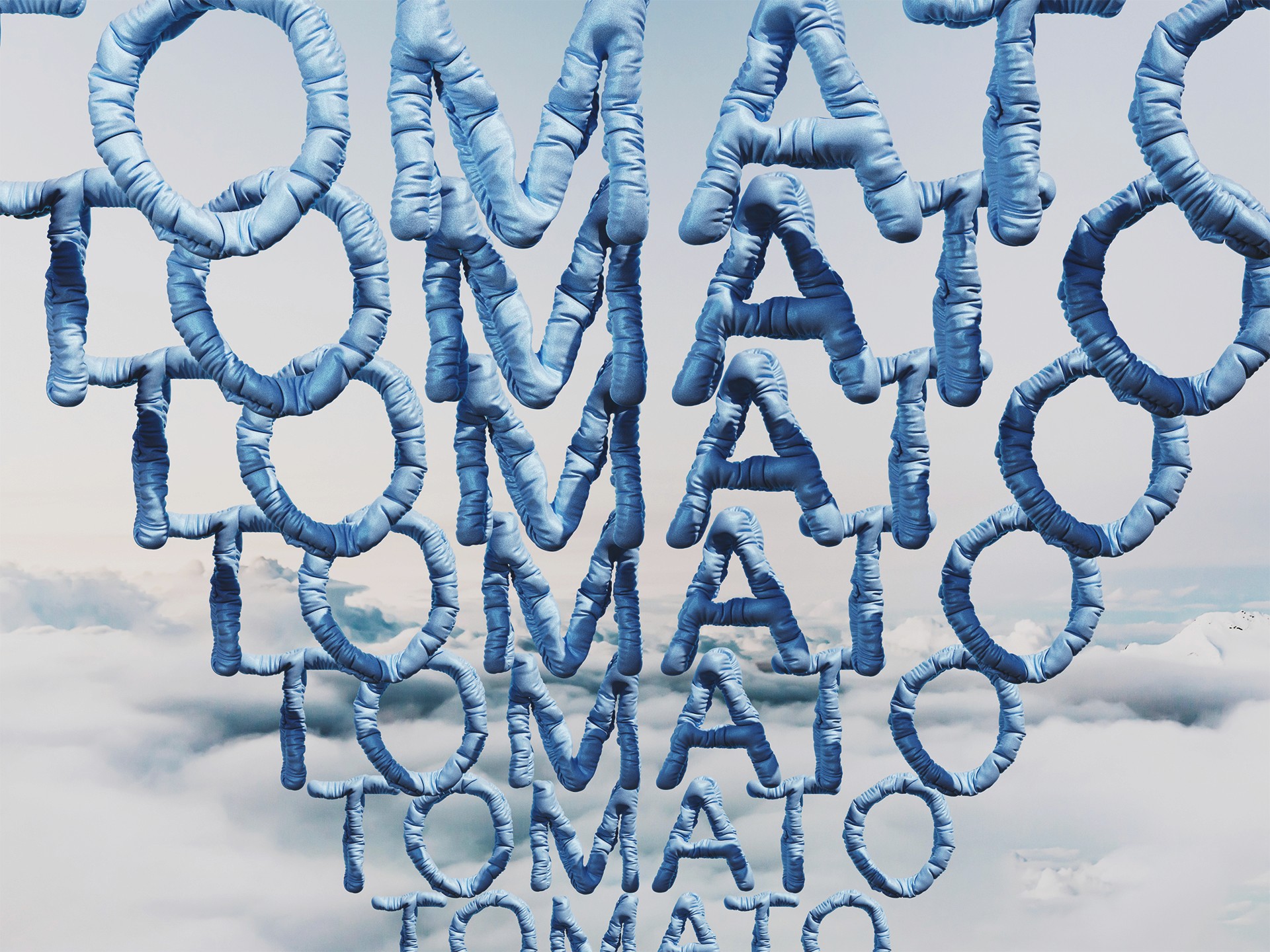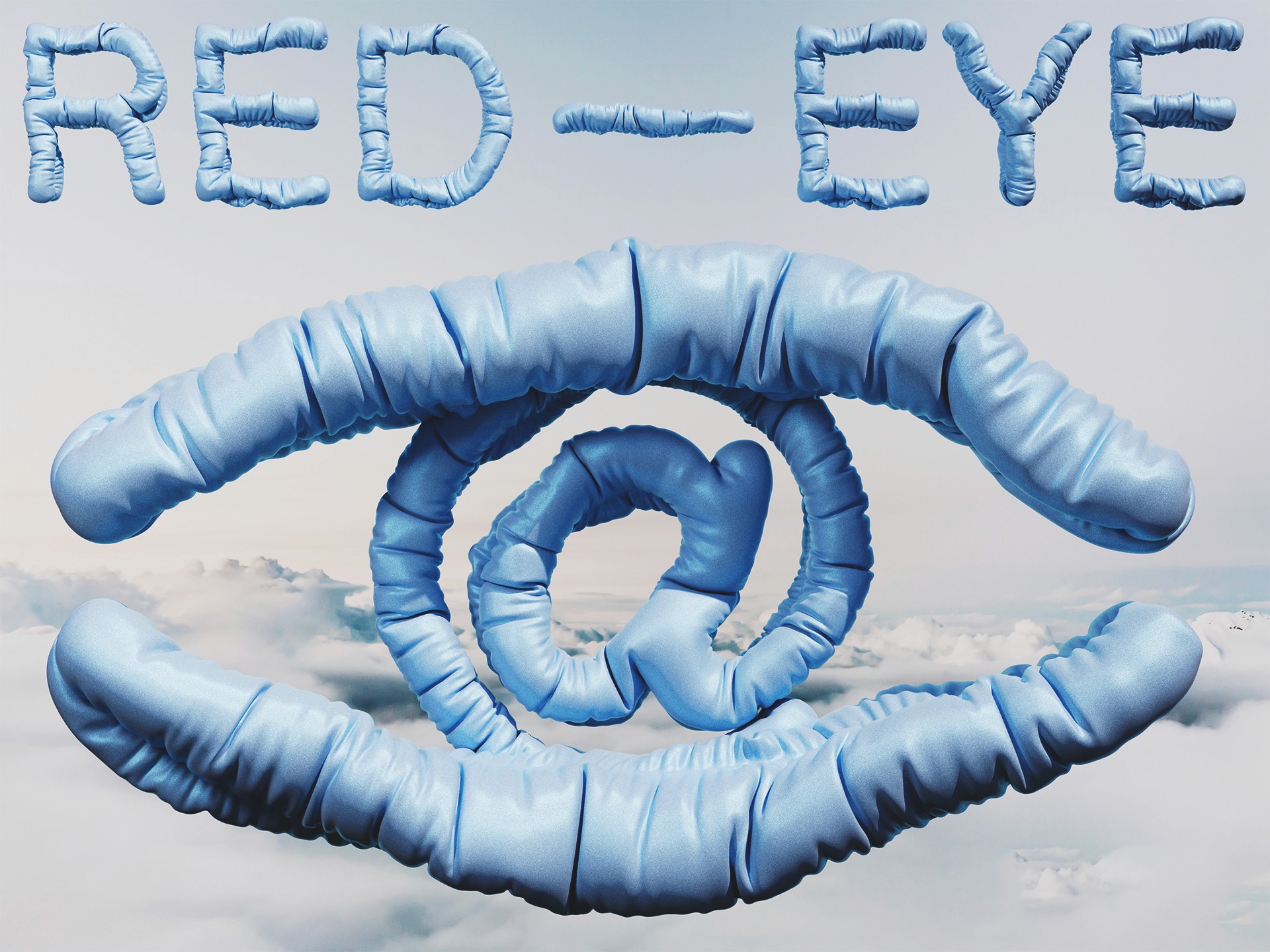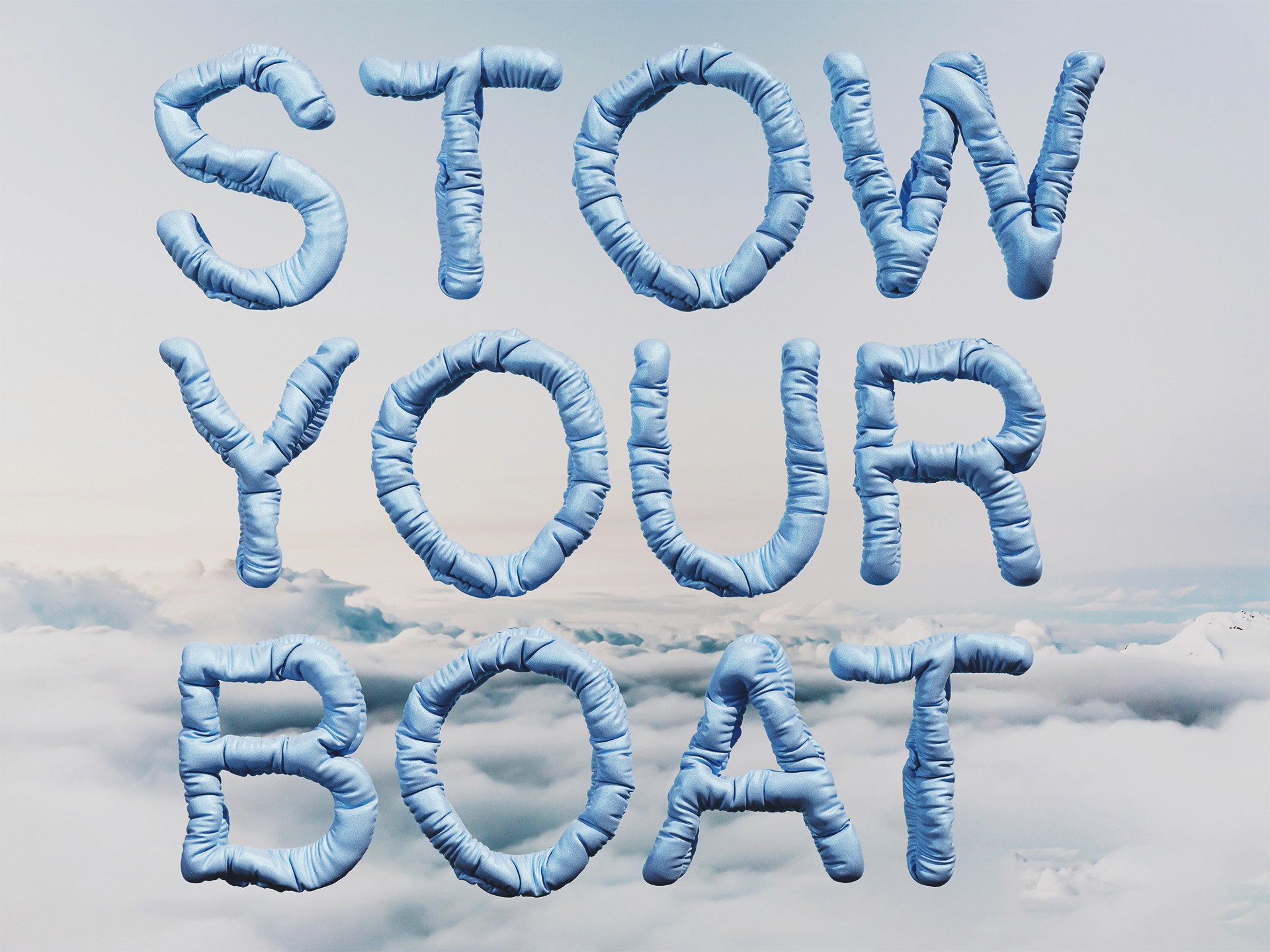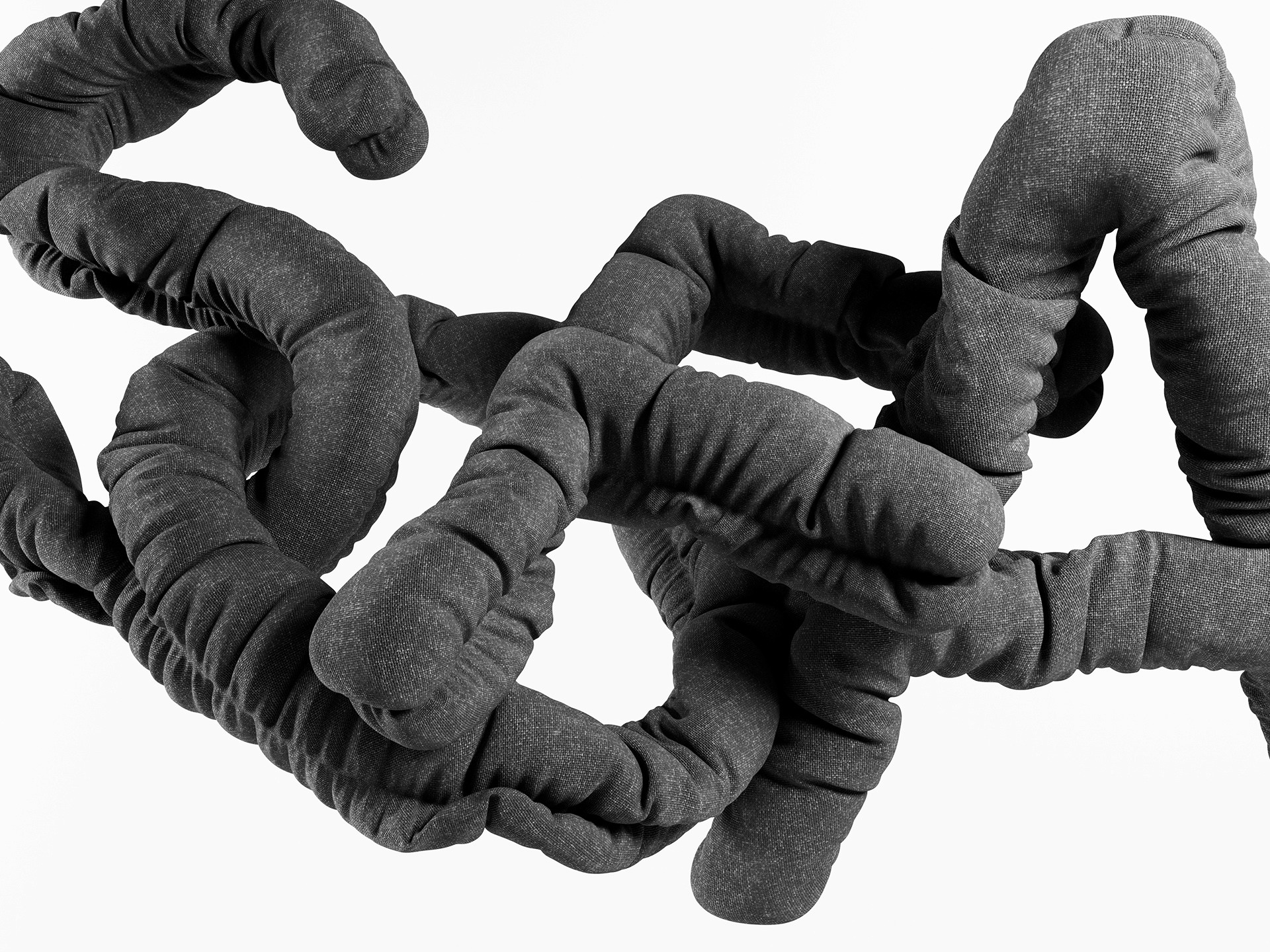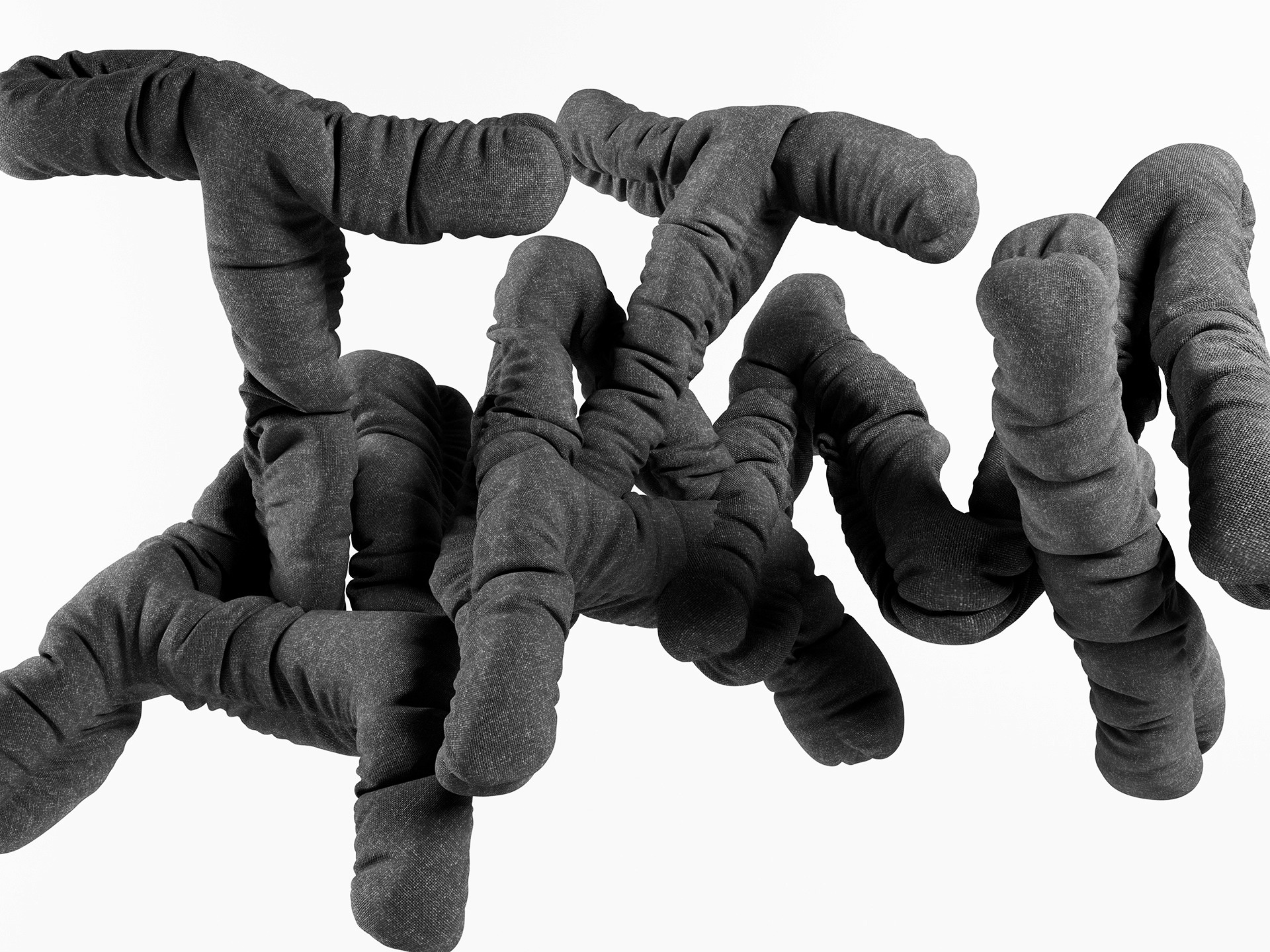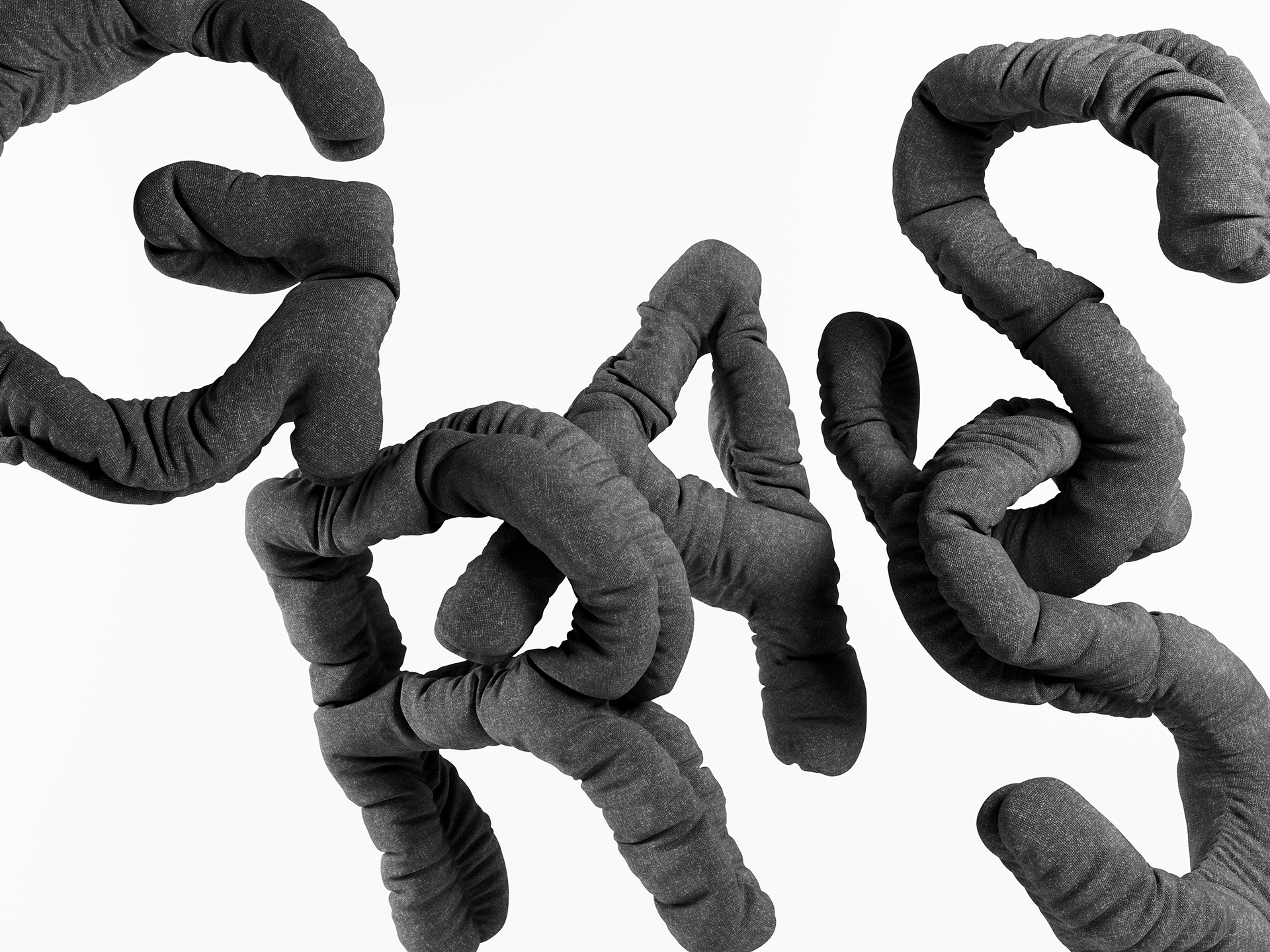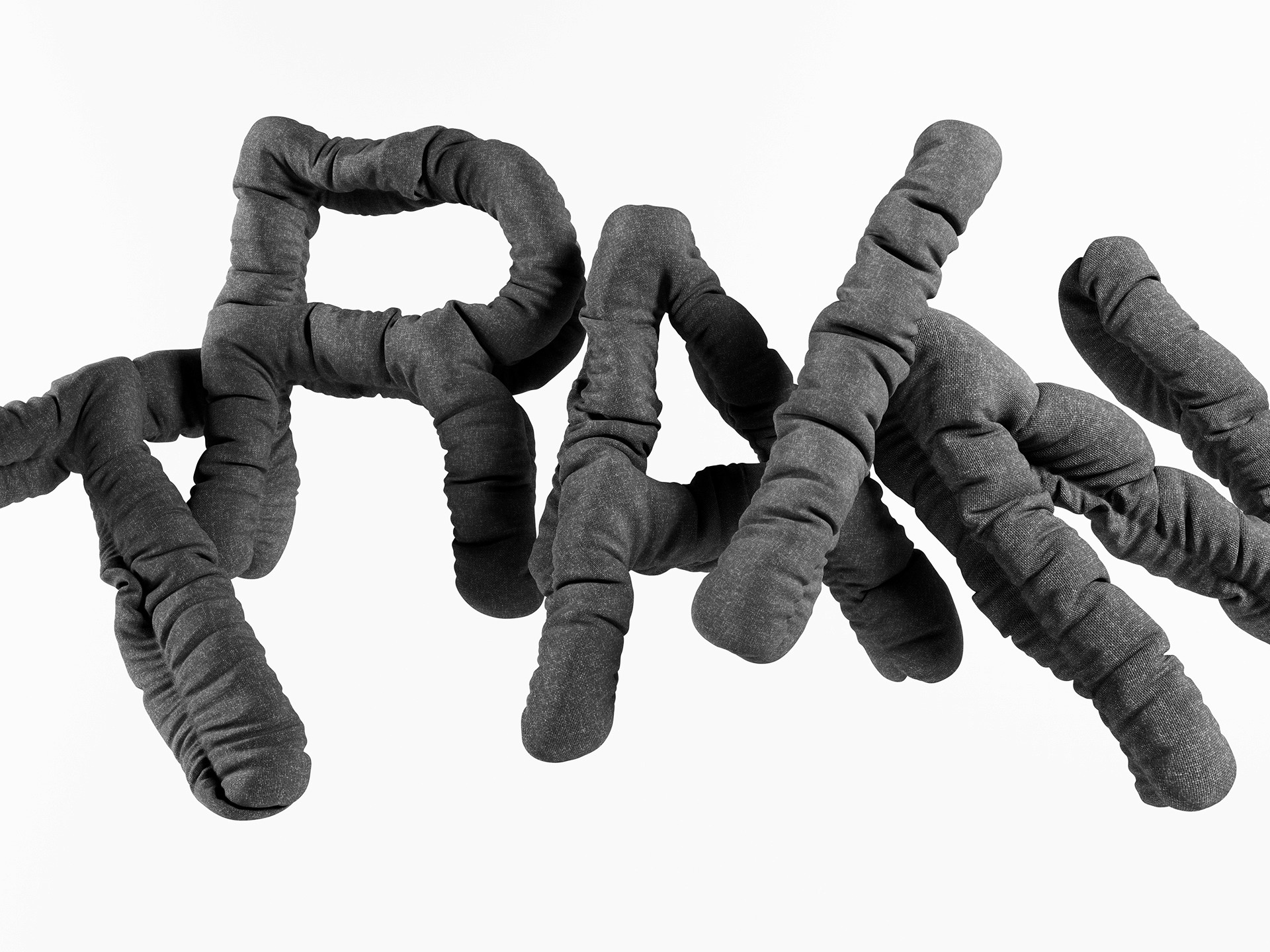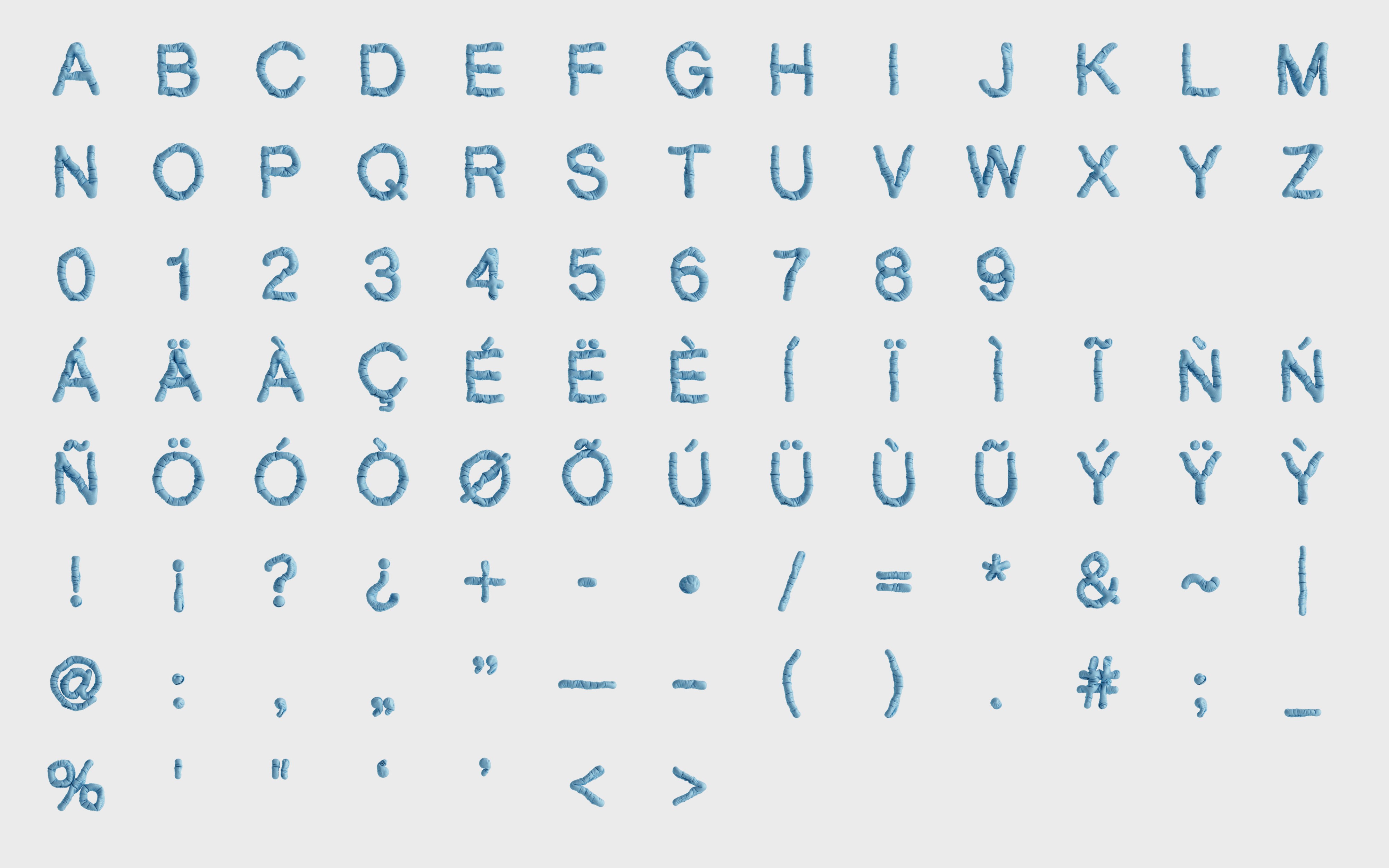
TC Puffy
TC Puffy is a cloth-like 3d typeface, gentle and serene, featuring all the wrinkles you’ve ever wanted. It lives somewhere between a pillow and a floating piece of fabric, soft, dynamic, full of life.